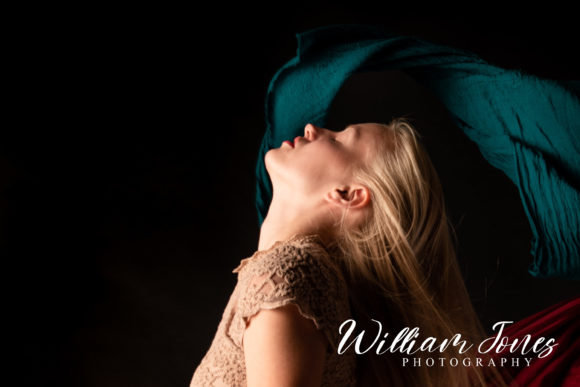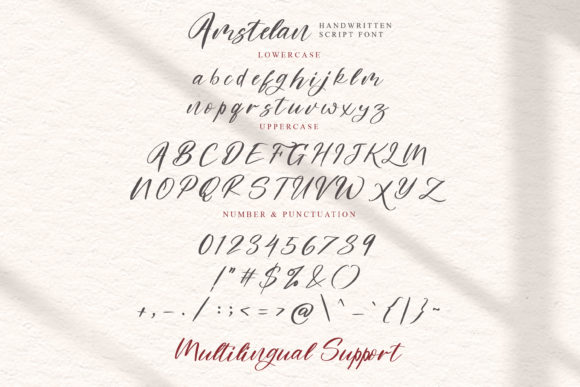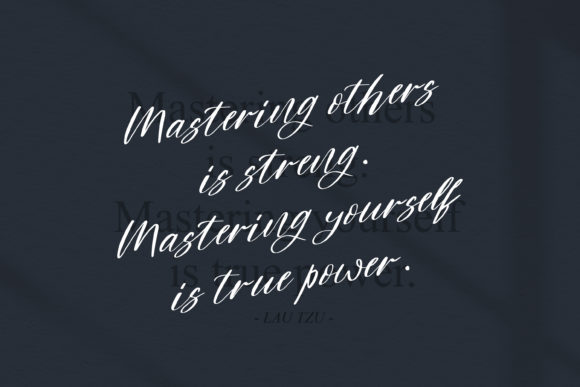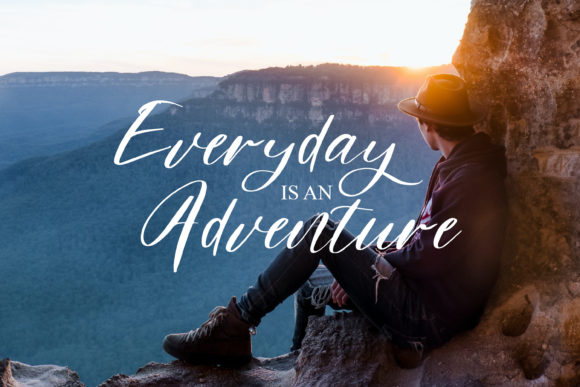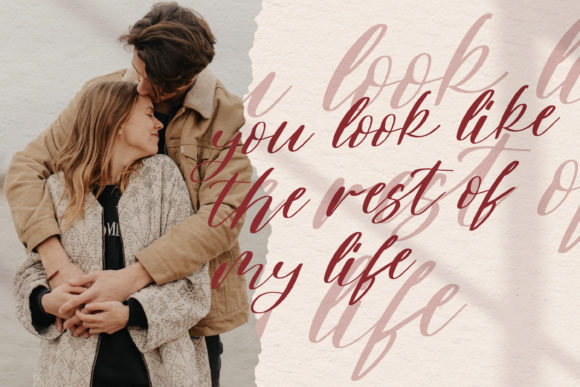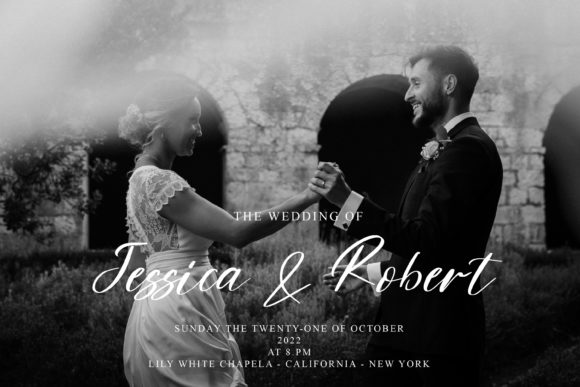
Introducing Amstelan Font: The Epitome of Elegance and Sophistication
Amstelan is a beautifully flowing script font that embodies elegance and sophistication. It is the perfect font for projects that need exquisite and authentic typography! In the world of typography, a font can make or break the visual appeal of a design. Amstelan font is a stunning script font that can elevate your designs to new heights. In this article, we’ll delve into the world of Amstelan font, exploring its features, uses, and benefits for designers and crafters.
The Characteristics of Amstelan Font
Amstelan font is a script font that exudes luxury and refinement. Its flowing lines and curves create a sense of movement and fluidity, making it perfect for designs that require a touch of elegance. The font features:
- Beautifully flowing lines: Amstelan font boasts smooth, connected letters that create a sense of continuity and harmony.
- Elegant and sophisticated: The font’s refined lines and curves evoke a sense of luxury and sophistication, making it perfect for high-end designs.
- Exquisite and authentic: Amstelan font is designed to provide an authentic and genuine feel to your designs, making it ideal for projects that require a touch of classic elegance.
Uses of Amstelan Font
Amstelan font is versatile and can be used in a variety of design projects, including:
- Logos and branding: The font’s elegant and sophisticated feel makes it perfect for logos and branding projects that require a touch of luxury.
- Wedding and event designs: Amstelan font is ideal for wedding invitations, event posters, and other designs that require a touch of elegance and sophistication.
- Packaging and product design: The font’s refined lines and curves make it perfect for packaging and product design projects that require a high-end feel.
- Advertising and marketing materials: Amstelan font can add a touch of sophistication and elegance to advertising and marketing materials, such as brochures, flyers, and posters.
Benefits of Using Amstelan Font
Using Amstelan font in your designs offers several benefits, including:
- Unique and distinctive: Amstelan font is a unique and distinctive font that can help your designs stand out from the crowd.
- High-end feel: The font’s elegant and sophisticated feel can add a touch of luxury to your designs, making them perfect for high-end projects.
- Easy to read: Despite its elegant and flowing lines, Amstelan font is easy to read, making it perfect for designs that require a touch of sophistication and clarity.
- Versatile: Amstelan font can be used in a variety of design projects, from logos and branding to packaging and advertising materials.
Tips for Using Amstelan Font
To get the most out of Amstelan font, follow these tips:
- Use it sparingly: Amstelan font is a statement font, so use it sparingly to avoid overwhelming your designs.
- Pair it with a sans-serif font: Pairing Amstelan font with a sans-serif font can create a beautiful contrast and add visual interest to your designs.
- Experiment with font sizes: Amstelan font looks stunning in large font sizes, but it can also be used in smaller font sizes to create a more subtle effect.
Amstelan font is a beautifully flowing script font that embodies elegance and sophistication. Its refined lines and curves make it perfect for designs that require a touch of luxury and refinement. With its versatility, unique characteristics, and ease of use, Amstelan font is a must-have for designers and crafters looking to elevate their designs to new heights. Whether you’re working on a logo, branding project, or packaging design, Amstelan font is sure to impress.